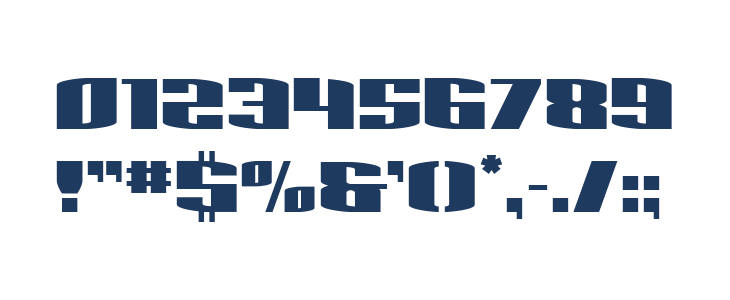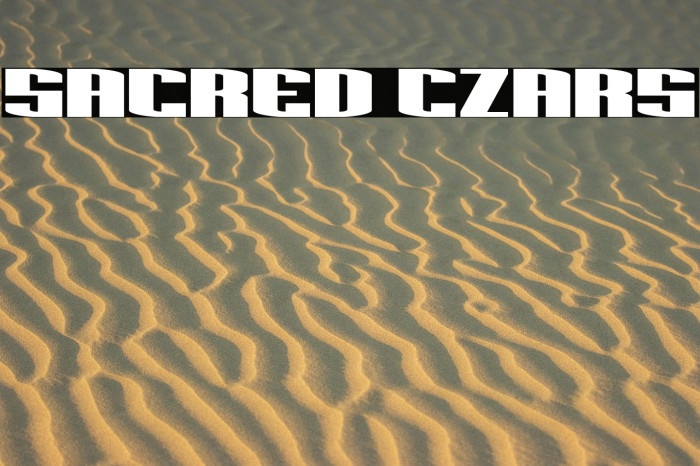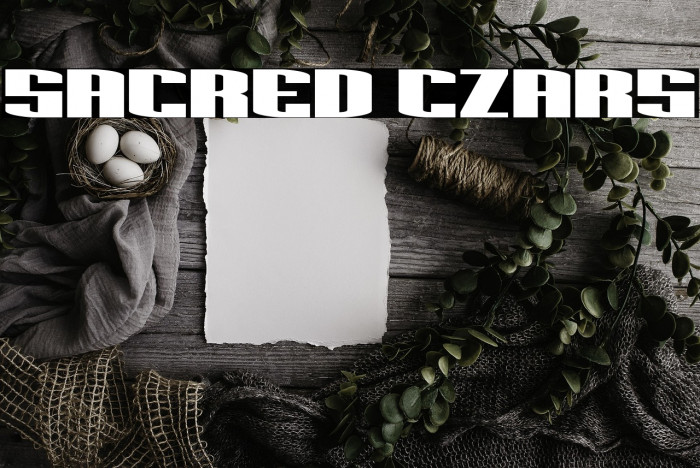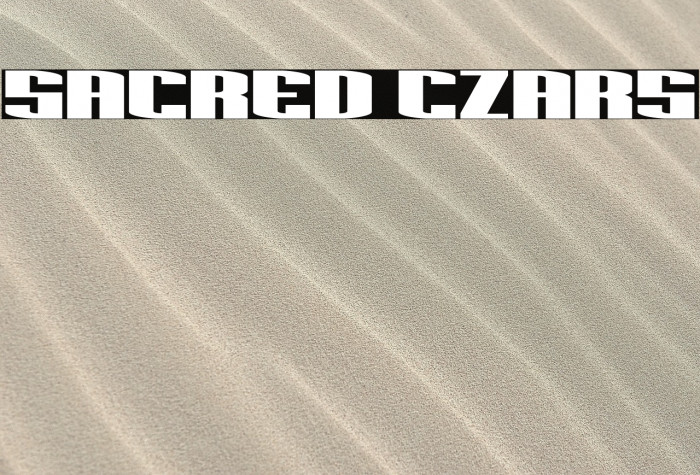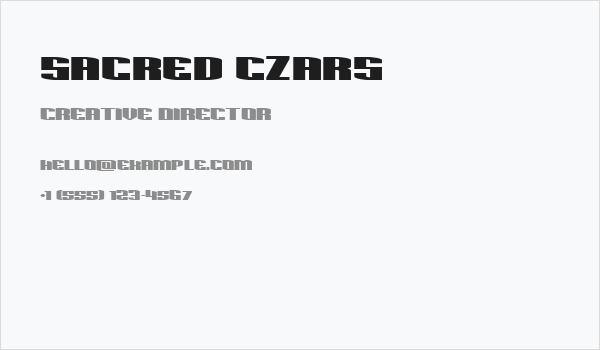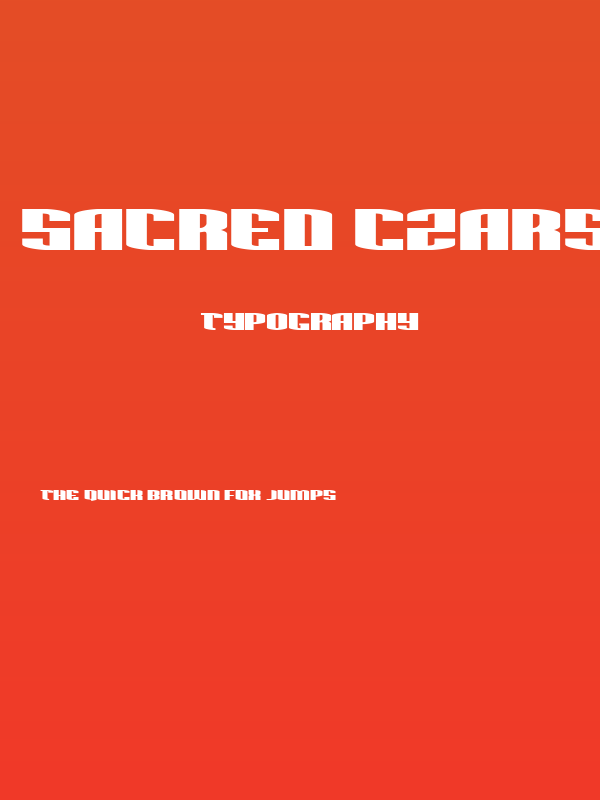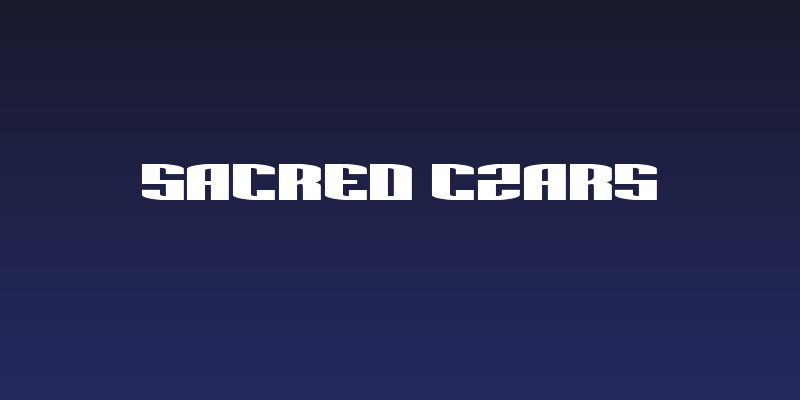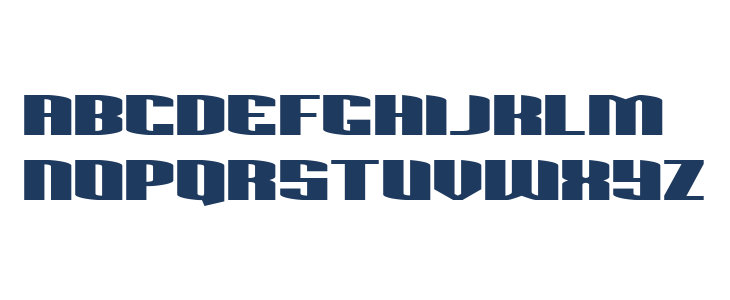
Sacred Czars Font
Sacred Czars Description
This font features a bold and striking design with a distinct geometric structure. The characters are wide and blocky, giving them a strong presence. Each letter is crafted with sharp angles and clean lines, creating a modern and assertive look. The uppercase and lowercase letters maintain a consistent style, while the numerals and special characters complement the overall aesthetic. This font is ideal for projects that require a bold statement, such as posters, headlines, and branding materials.
| Proposed Projects | Ideal for posters, headlines, branding, and any project needing a bold statement. |